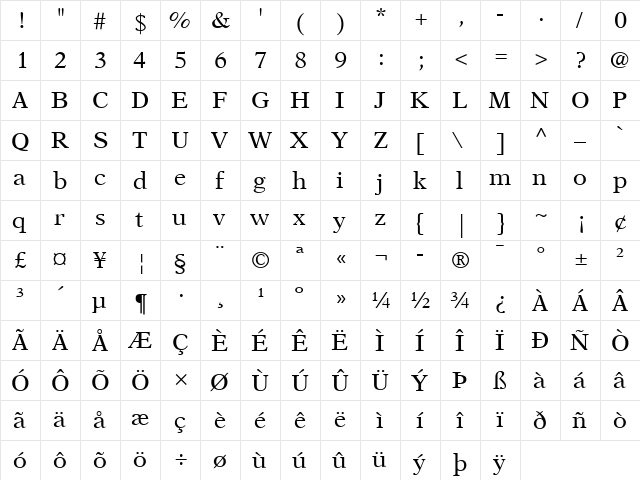
NewAster LT Regular
Design Context for NewAster LT Typeface
NewAster LT offers clean, dependable letterforms without strong stylistic allegiance, making it a practical choice for designers who need flexibility. The delicate stroke weight brings airiness and refinement to layouts.
Pro Tip: Use NewAster LT in both headline and body roles to test its range before committing to a single application.